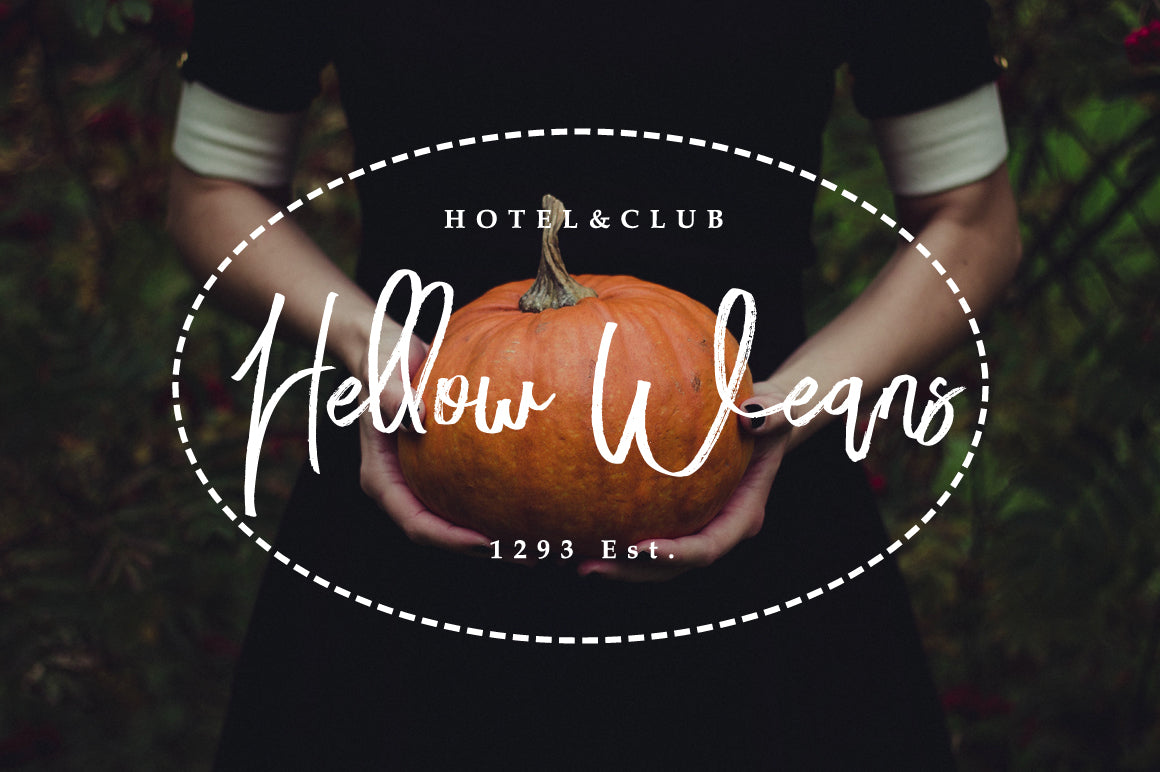
Free Bloomy Script Handwritten Font
Today we're glad to feature this free bloomy script – handwritten font. Go give some love to Pixelify for creating this top-notch typeface. Amaze your fellow designers and create stunning designs with this beautiful font.